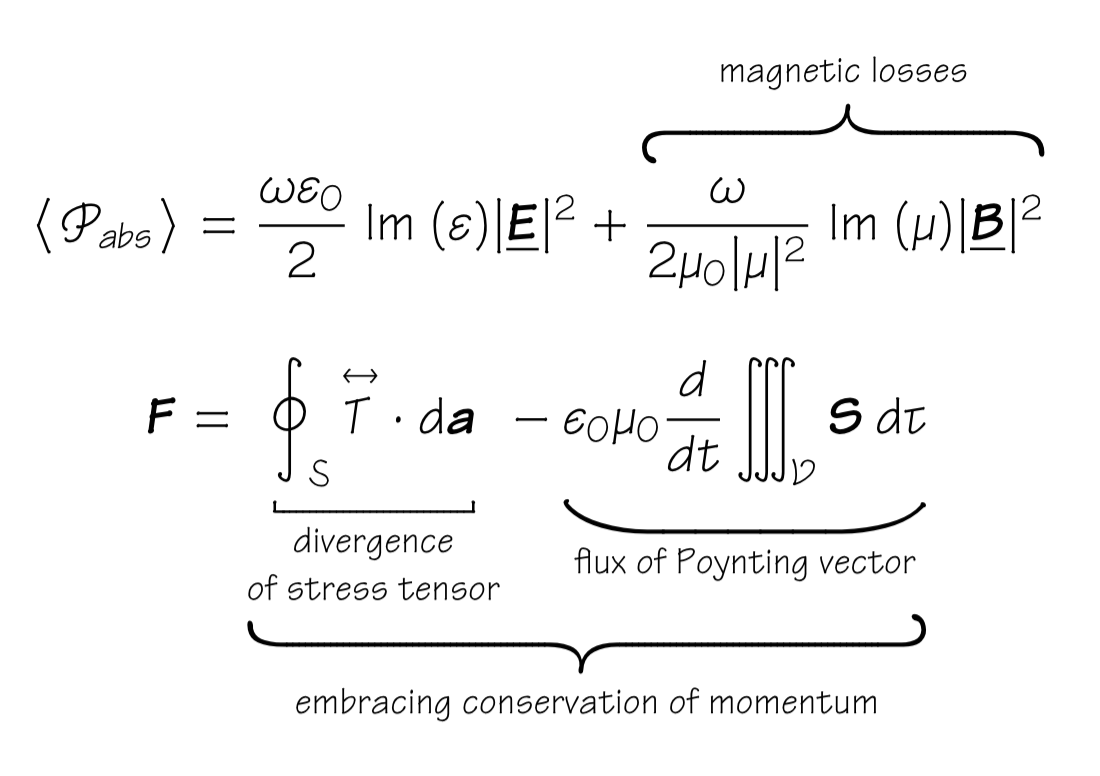
Is there an "hand-written-like" font usable for math mode?
I would like to use a hand-written-like for my math formulas, something like what you can see on https://tex.stackexchange.com/questions/453429/create-a-handwriting-environment-for-both-text-and-math
I know I can change the font, according to typst.app/docs/reference/math/. I tried some random font but Typst tells me - quite obviously - it is not designed for math.
1. Is there a list of math-enabled fonts?
2. Is there an “hand-written-like” font usable for math mode?
I’ve frequently referred to this list: https://tex.stackexchange.com/questions/425098/which-opentype-math-fonts-are-available - OpenType and Latex compatible math fonts should all work with Typst
I think pennstander math might be the best one? I saw it because of touying theme jotter, but it’s also in the list above.
Another possibility is Nagwa TK fonts.